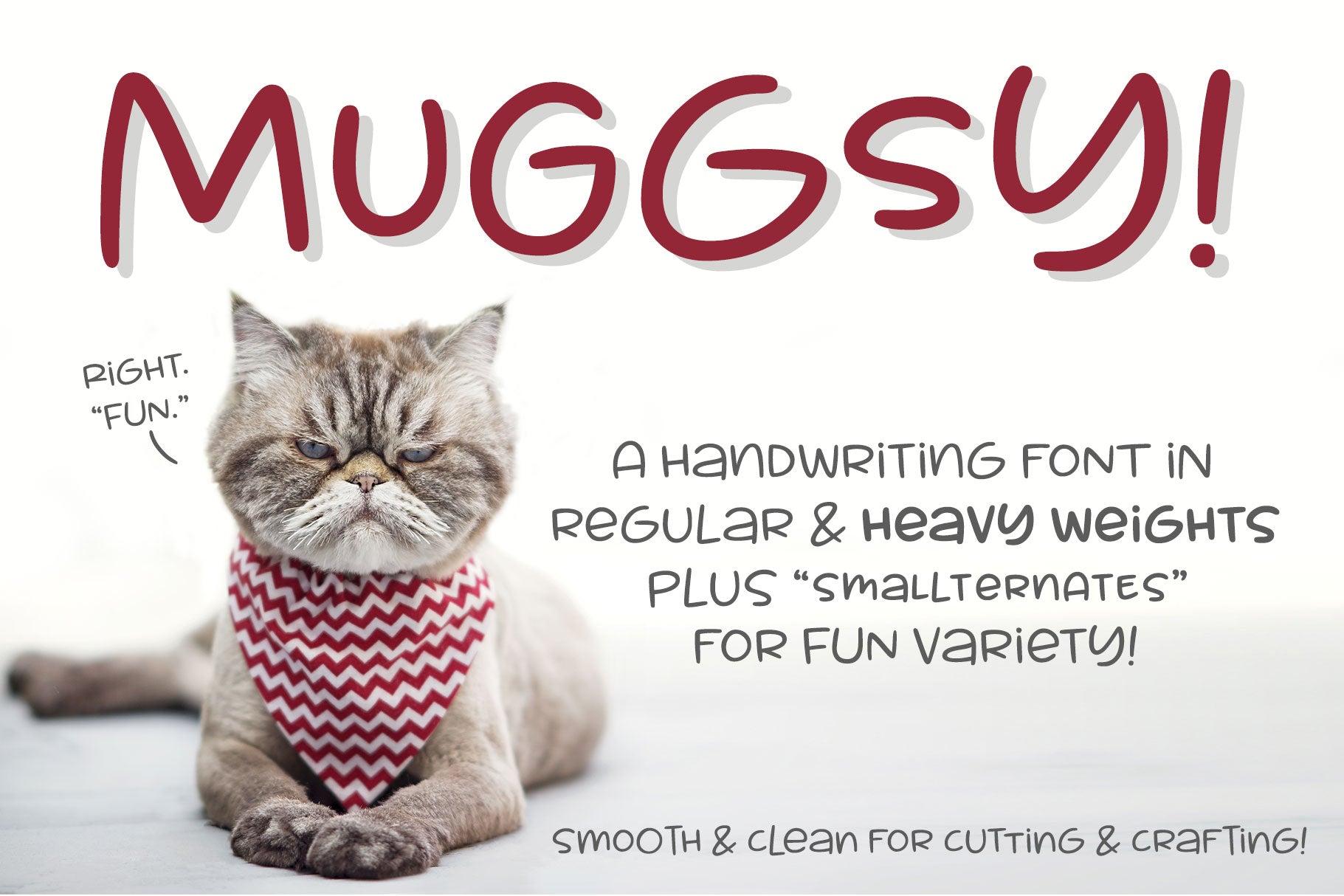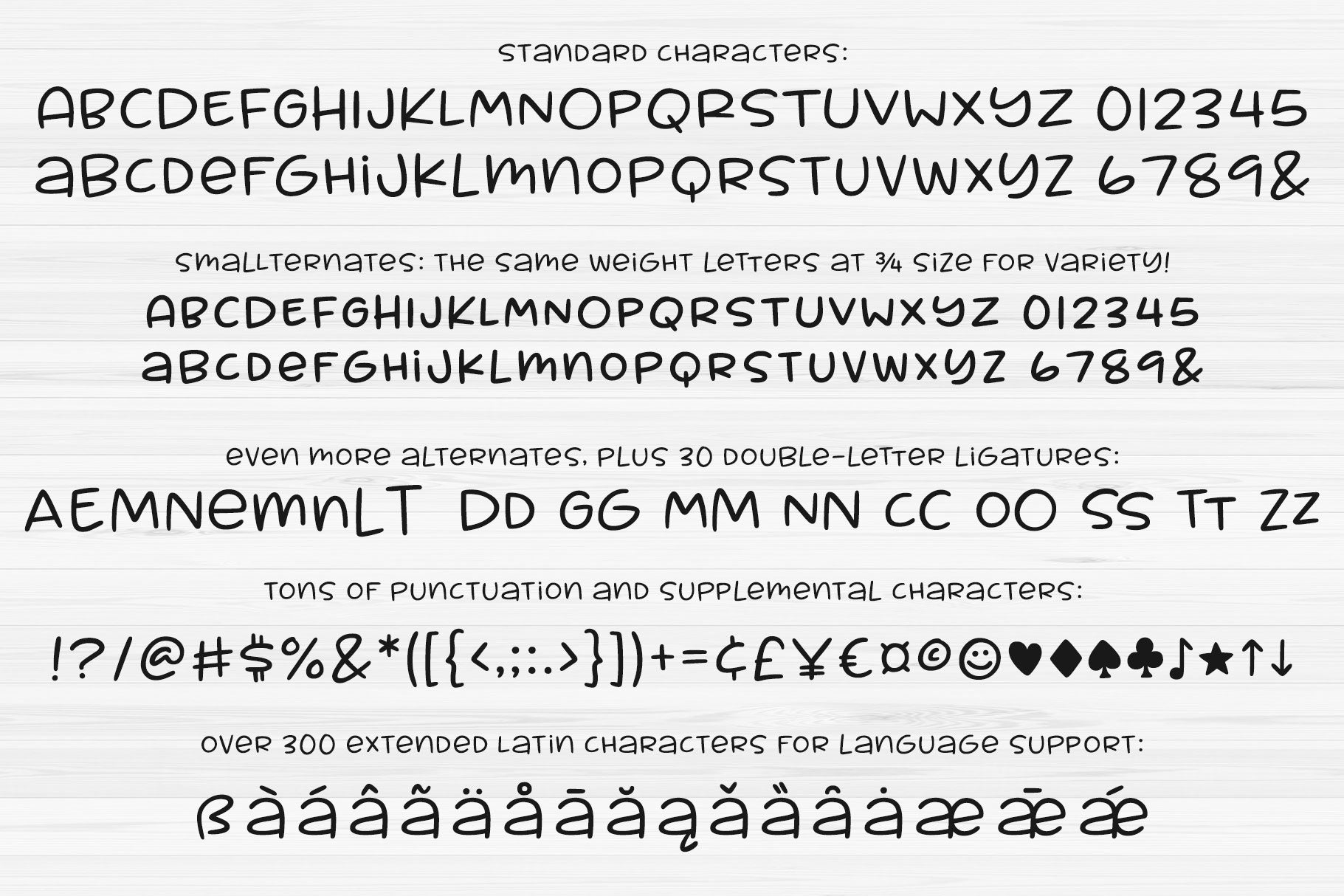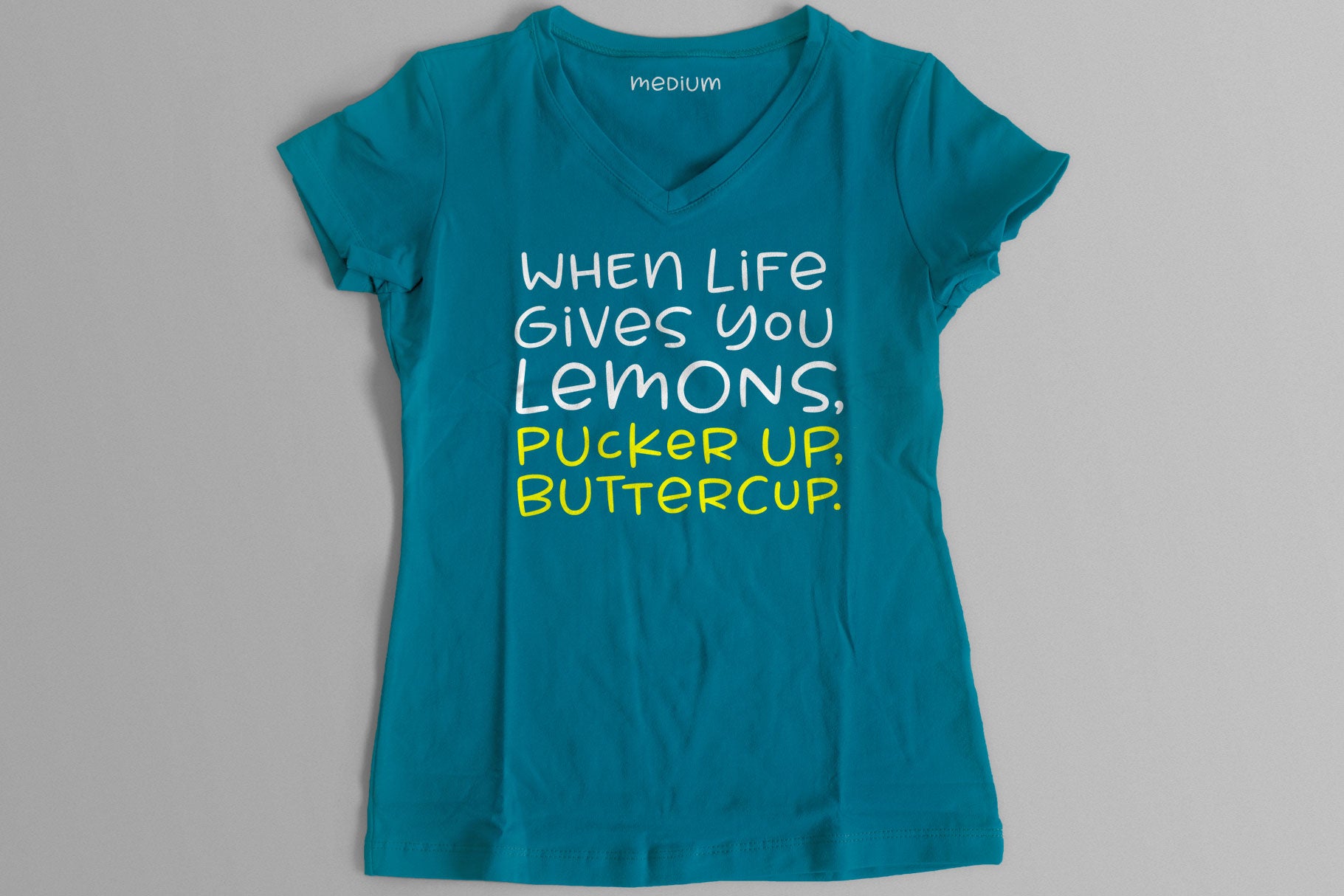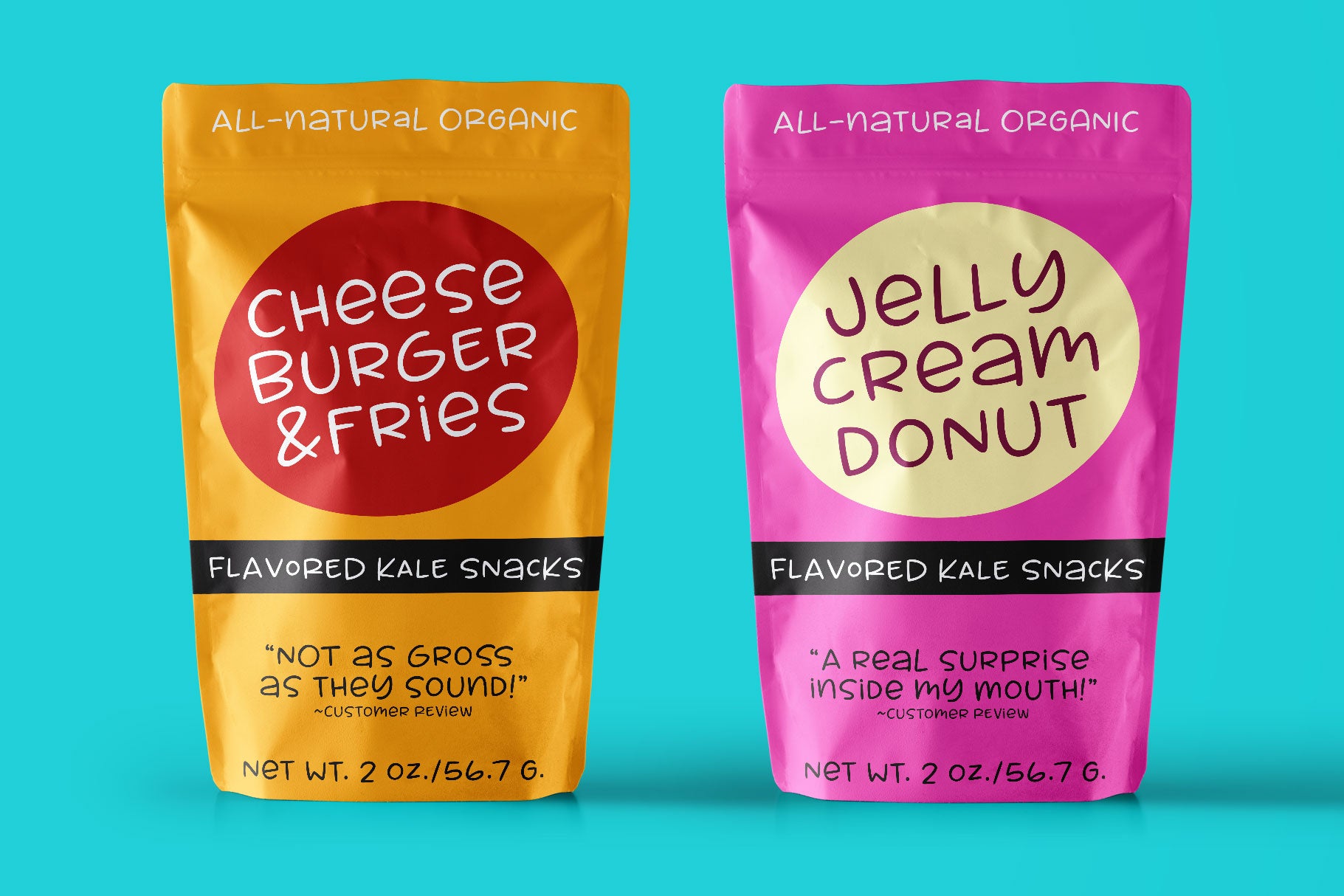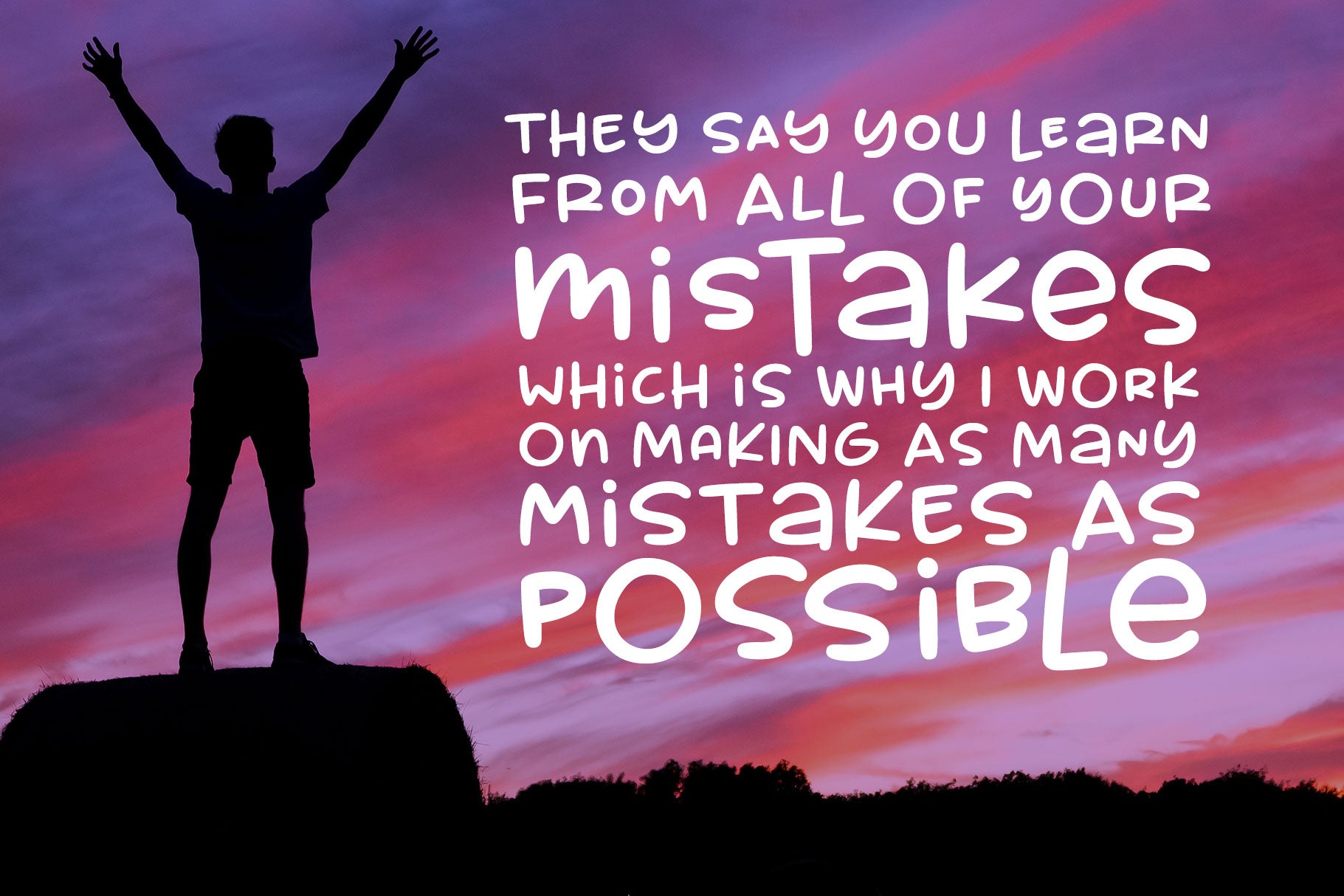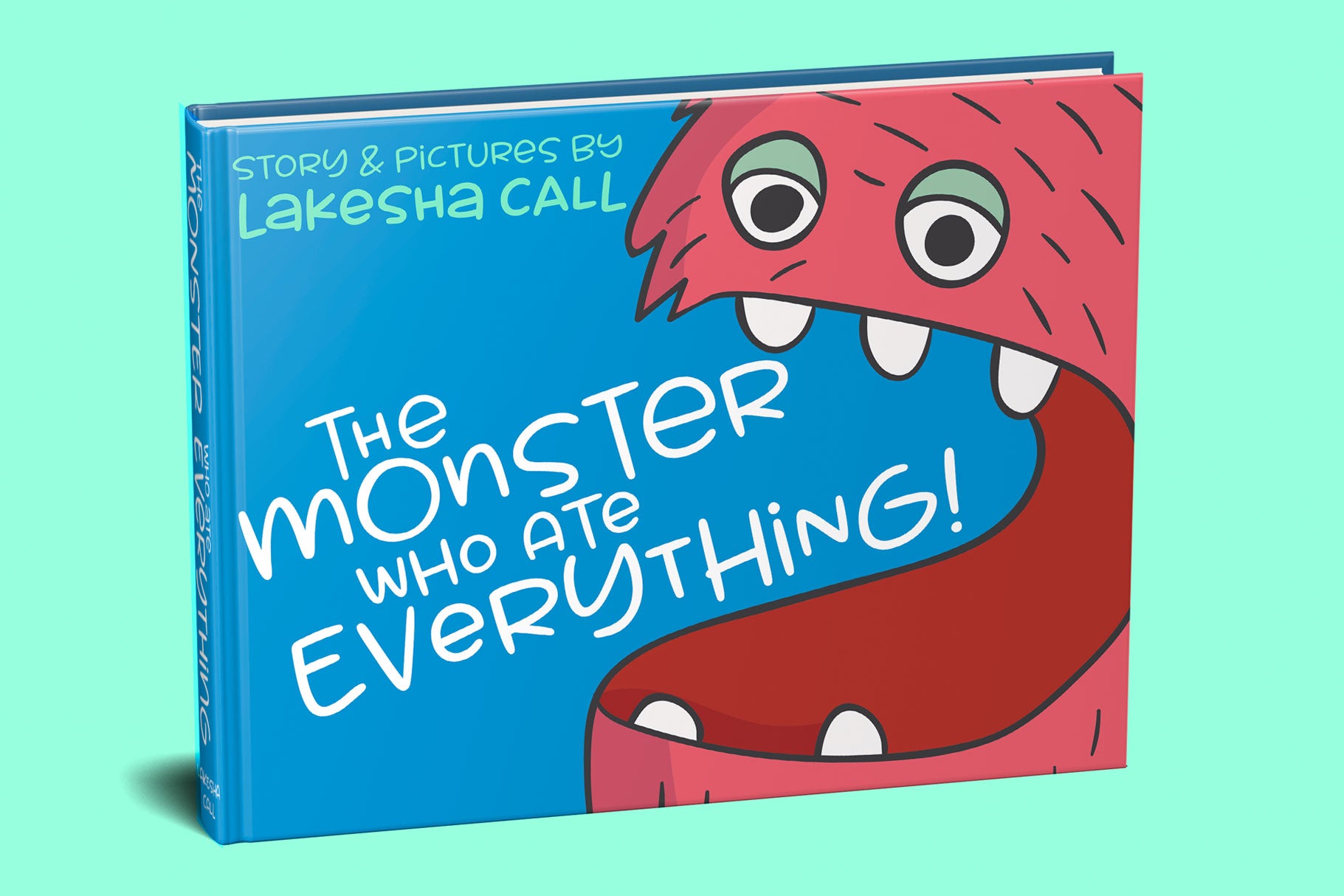
I do a lot of taller, narrower handwriting fonts; this time around, I was inspired to make a wider, shorter handwriting font! Muggsy has everything you expect from one of my fonts: clean and smooth curves, a full set of alternates, and a feeling of fun!
Muggsy has two uppercase-height alphabets (with a few lowercase-style letters like a and e in the lowercase set), plus a full set of 63 "smallternates" -- the same letters, numbers, and ampersand sized down to 75%, and beefed up in weight so they can be mixed in with the full-size letters. Plus 30 double-letter ligature sets, and a few additional alternates for variety!
You also get a ton of punctuation, and my usual 300+ extended Latin characters for language support, for a total of over 600 glyphs!
And just because you may want things a bit heavier, I've also made Muggsy Heavy, a bolder weight of Muggsy with all of the same characters, alternates, and extras.